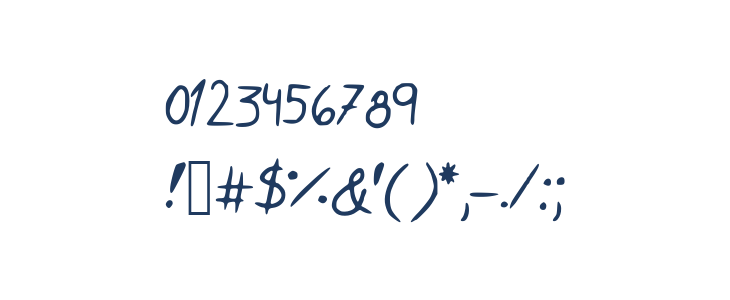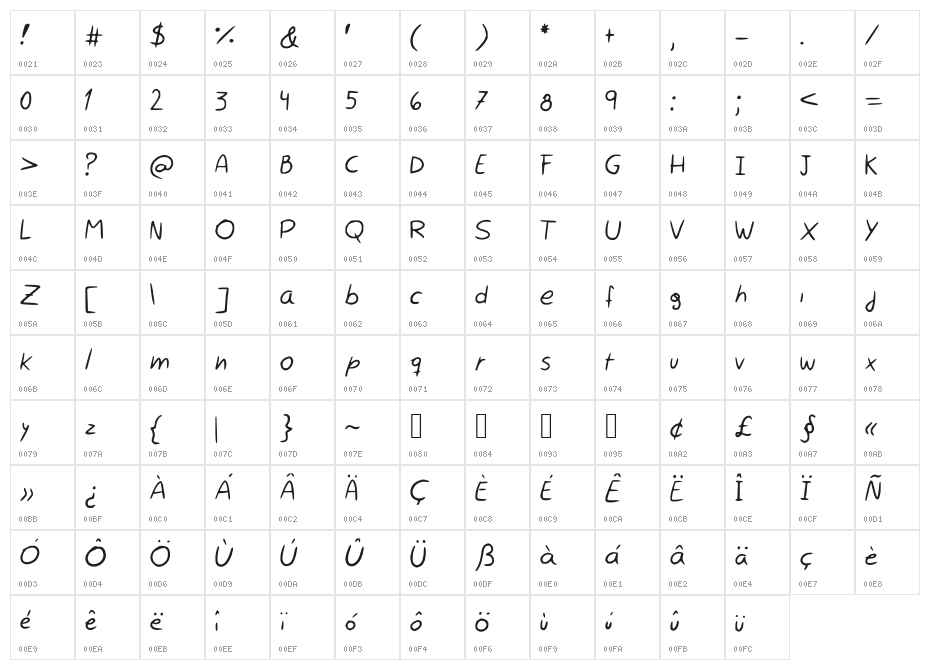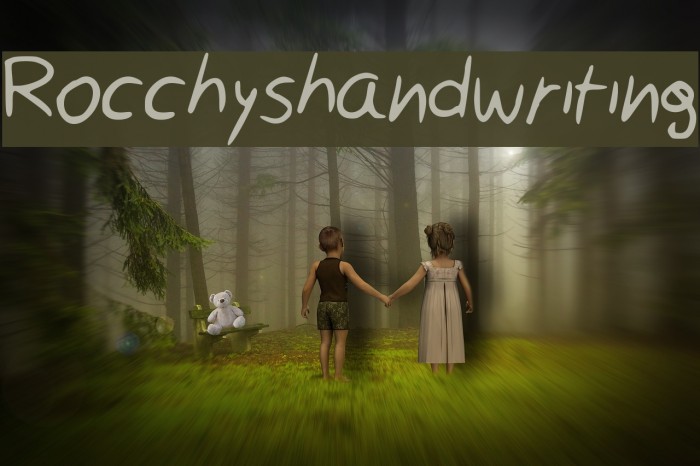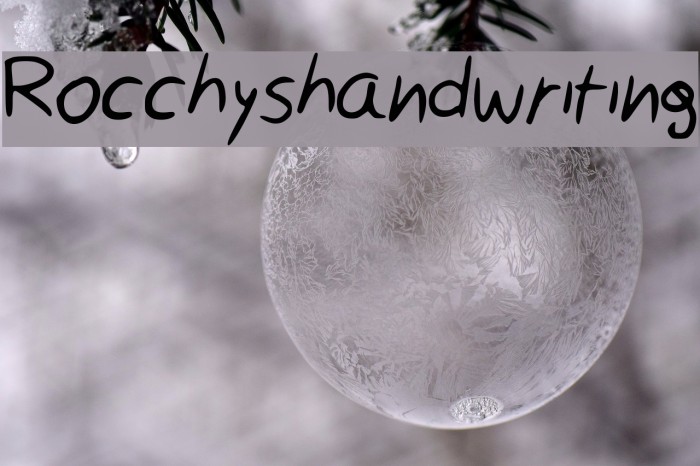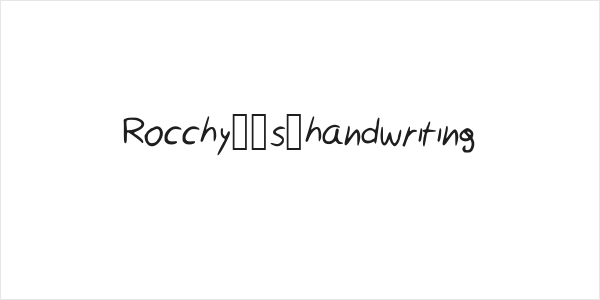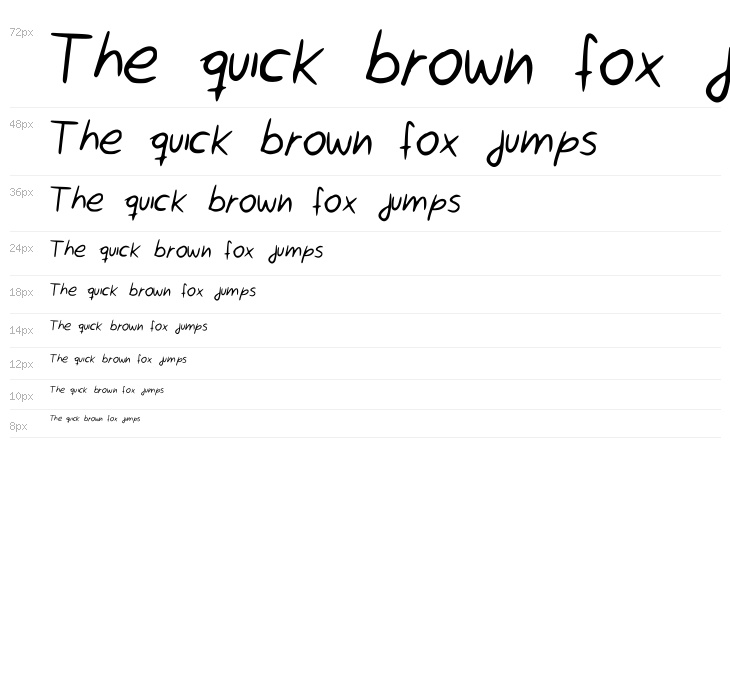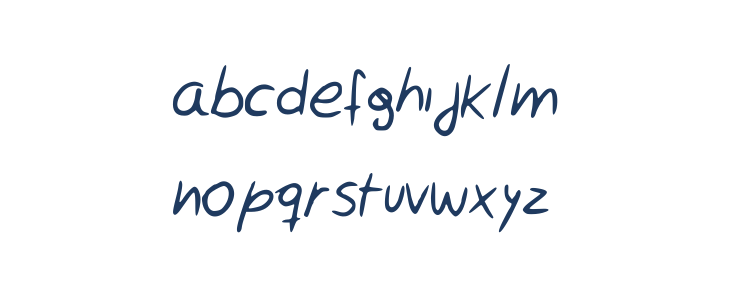
Rocchy__s_handwriting Font
Rocchy__s_handwriting Description
This font exudes a casual and personal touch, reminiscent of authentic handwriting. The characters are slightly slanted, giving a dynamic and lively appearance. Each letter is uniquely crafted, maintaining a consistent flow and rhythm throughout the alphabet. The strokes are smooth and slightly irregular, enhancing the handwritten feel. The numbers and special characters follow the same style, ensuring a cohesive look. This font is perfect for projects that require a personal or informal tone, such as invitations, greeting cards, or personal branding.